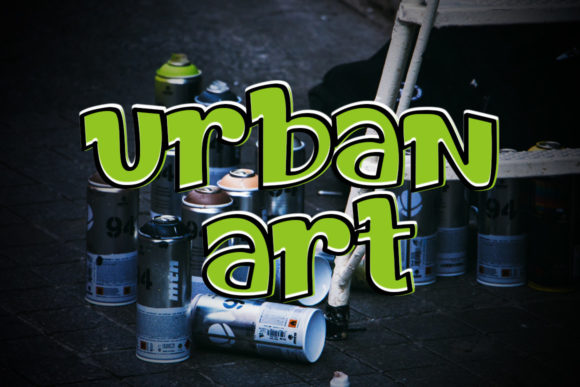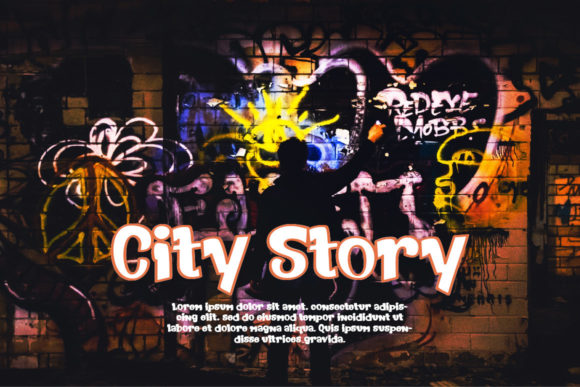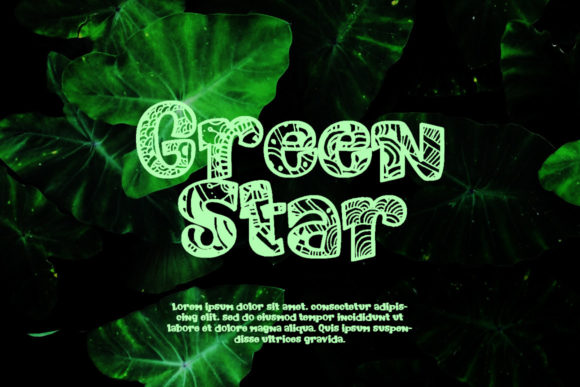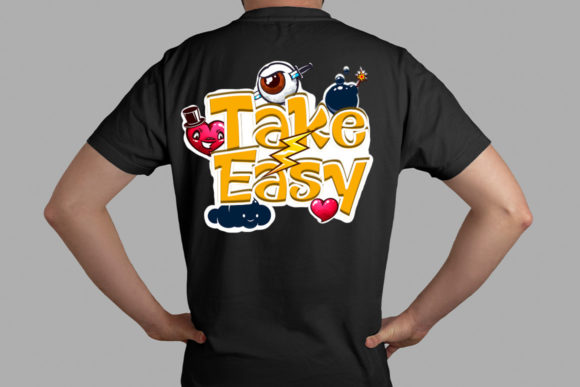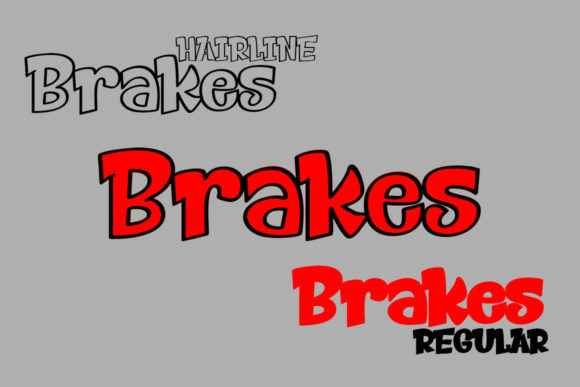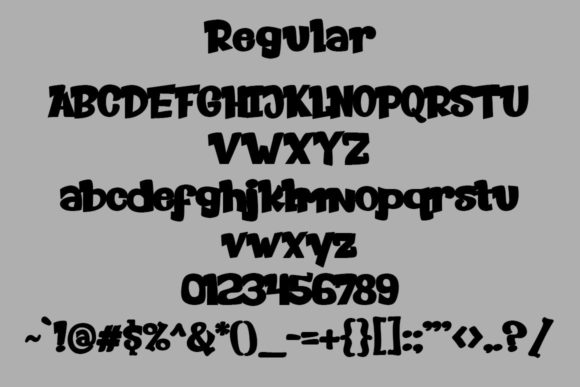
Introduction to Brakes Font
Brakes is an awesome, graffiti-styled display font that has a street art vibe.
This font is suitable for designs such as t-shirts, sportswear, logos, advertisements, clothing, and more .